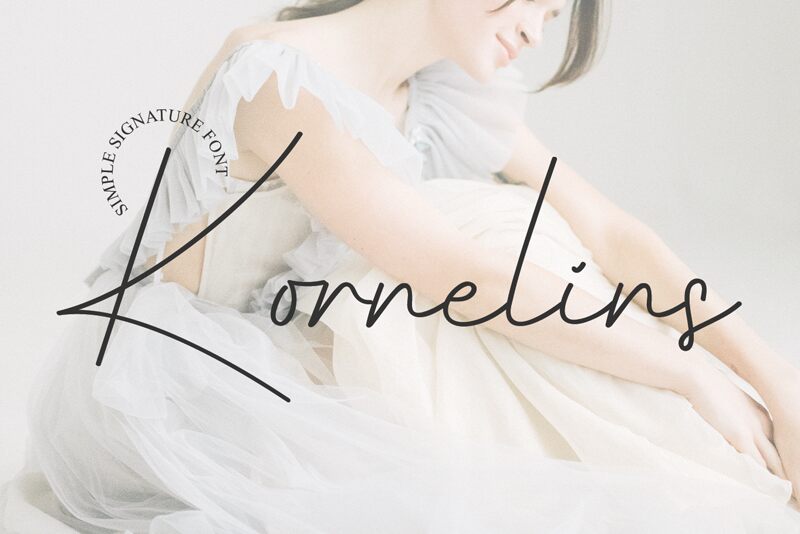
Kornelins
Kornelins font by Behind the Ink is a stunning light handwritten font masterfully crafted to captivate your audience and stand out in your designs. Perfect for casual sophistication, this contemporary style offers personalized elegance that will fit every professional and personal project it integrates.